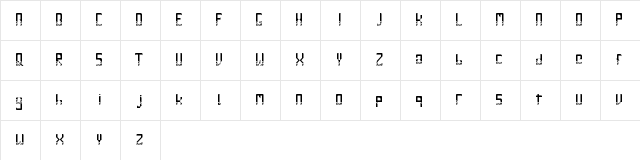
Gile lu Ndro. Regular
Designer: parhudamdam
Design Context for Gile lu Ndro.
Gile lu Ndro. is a composed and adaptable typeface that performs quietly and consistently across a wide range of design contexts.